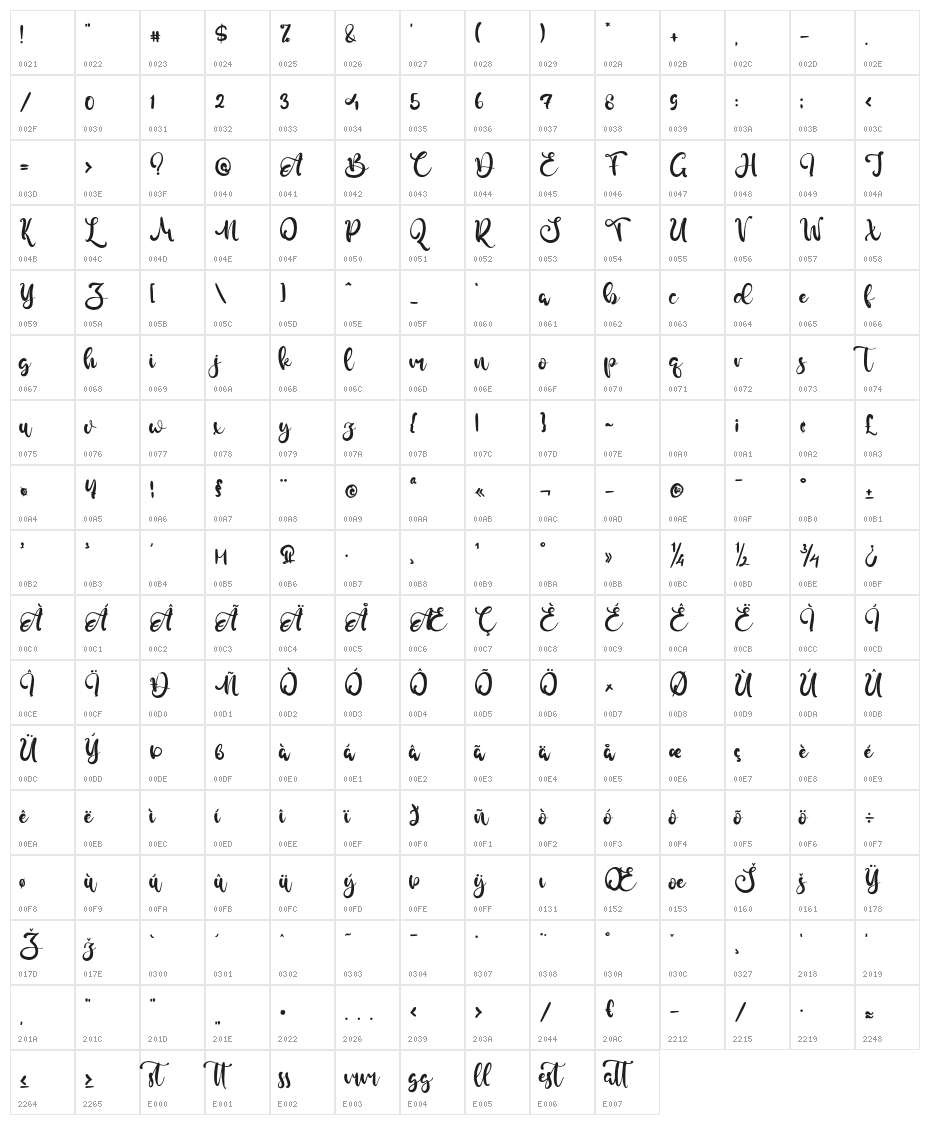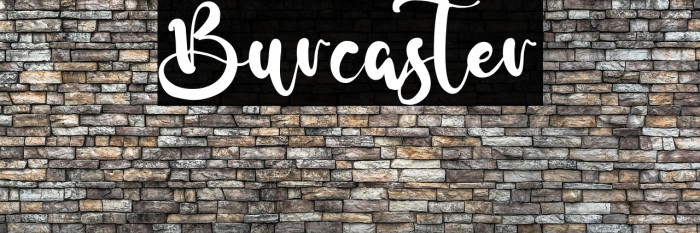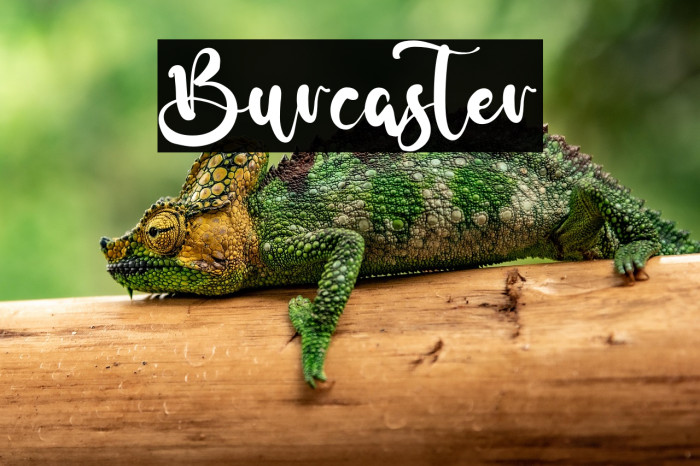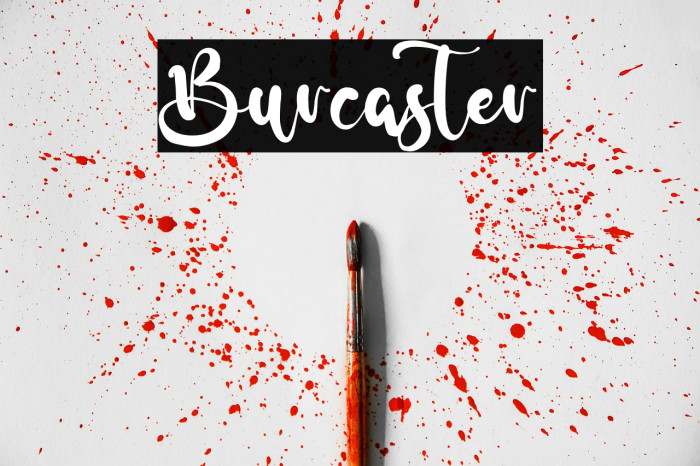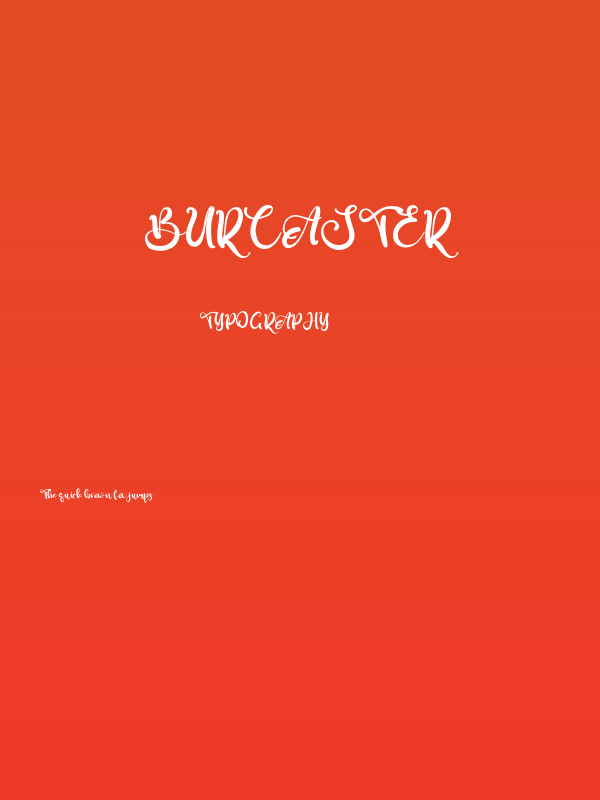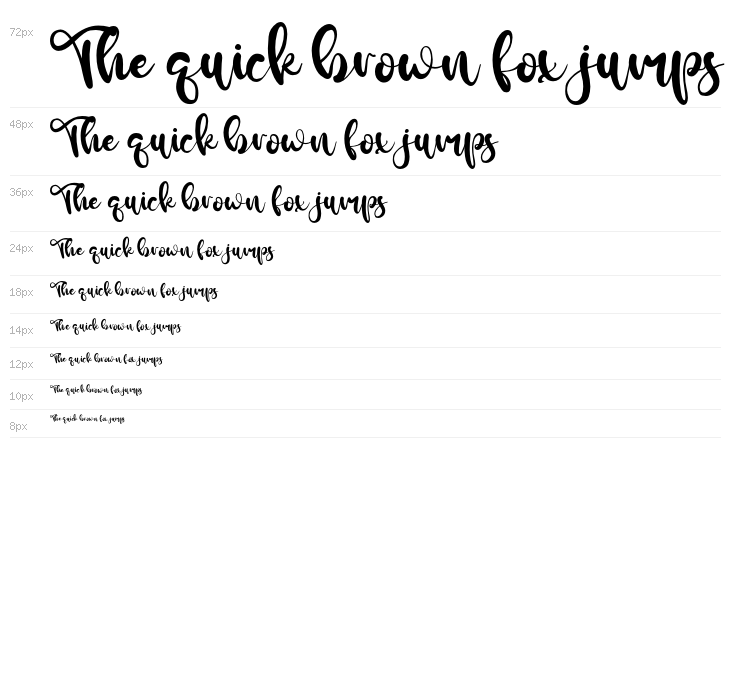
Burcaster Font
Burcaster Description
This font features a flowing, cursive style with a playful and elegant appearance. The letters are interconnected, creating a seamless script that is both decorative and legible. The uppercase letters are bold and ornate, with flourishes that add a touch of sophistication. The lowercase letters maintain a consistent style, with rounded forms and smooth curves. The numerals are designed to match the overall aesthetic, offering a cohesive look. Special characters are included, maintaining the same decorative flair. This font is ideal for projects that require a personal touch, such as invitations, greeting cards, or branding materials.
| Use Case | Headlines, Logos, Invitations |
| Proposed Projects | Ideal for wedding invitations, greeting cards, branding, and decorative signage. |